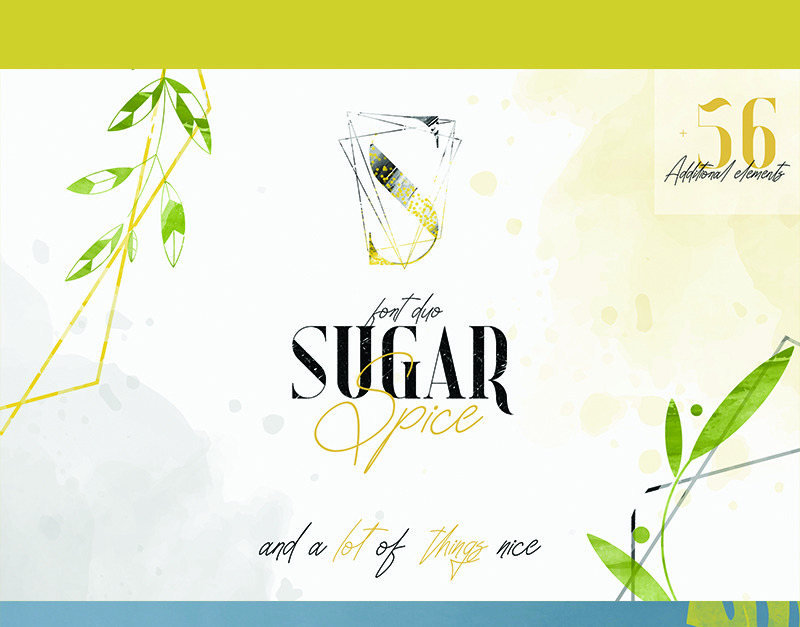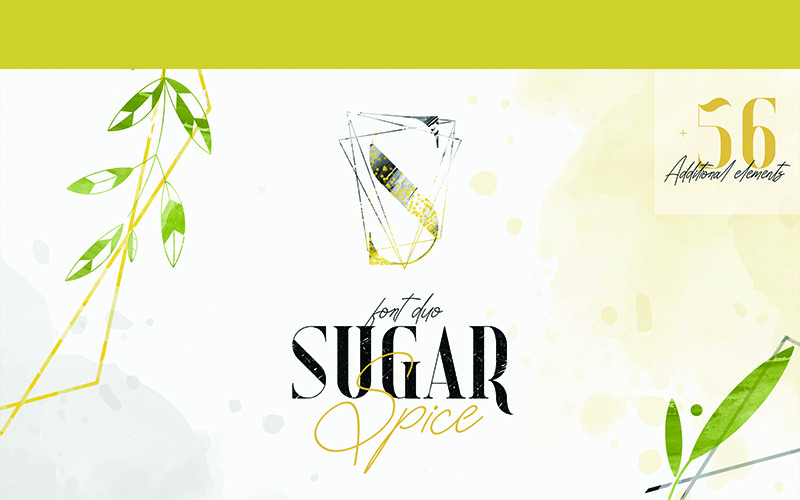
Sugar Spice Font
Sugar Spice is elegant, clean font duo with total of 6 font styles, 56 graphic elements and multilingual support. It's a very versatile font that works great in large and small sizes.
Sugar Spice is perfect for branding projects, home-ware designs, product packaging, magazine headers - or simply as a stylish text overlay to any background image.
In Sugar Spice and a lot of things nice You will find :
Sugar serif family
- Sugar Regular
- Sugar Rough
- Sugar Outline
- Sugar Halfcolor
- Sugar Halfcolor two
- Multilingual support
Spice script
- Spice script
- Multilingual
- Ligatures
Spice font contains following ligatures:
ab ll il it am an ul at al th nt ct cl ol ot rr om on oo of op ch ck el ep et ee re sh sl ss nn ff st